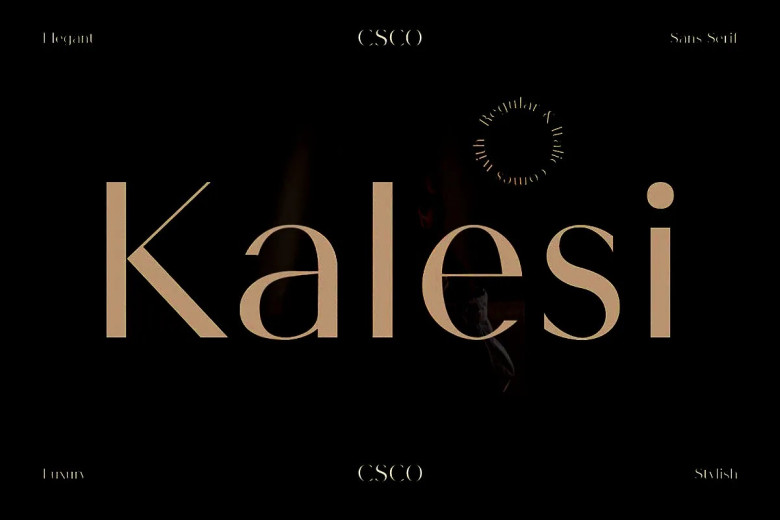
Kalesi Font
Kalesi Sans Serif Font strikes the ideal balance between contemporary simplicity and timeless sophistication with its minimalist style featuring subtle contrasts that lend it a touch of elegance. Ideal for projects requiring modern elegance with an sexiness touch such as branding, web design or editorial projects.
Kalesi effortlessly enhances these projects’ aesthetic by delivering a striking yet subtle appearance; whether its use conveys modern elegance and leaves lasting impressions with carefully considered designs, leaving behind lasting memories in their wake.
Kalesi Sans Serif Font